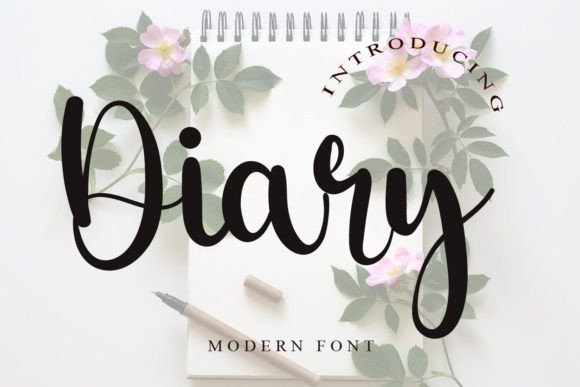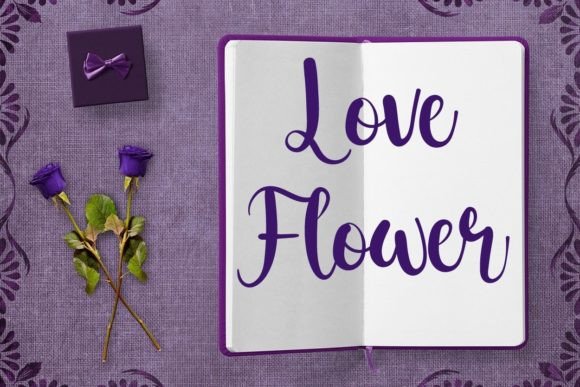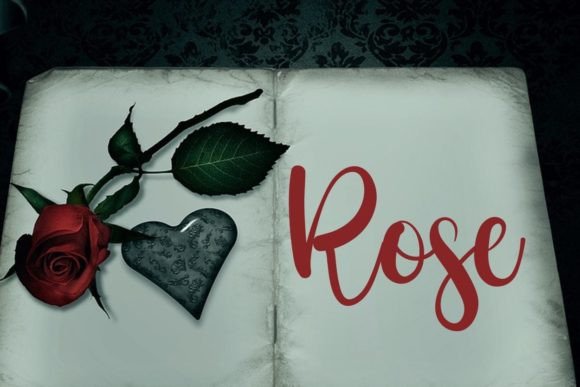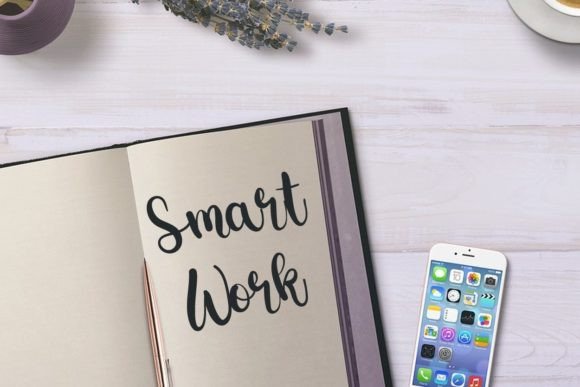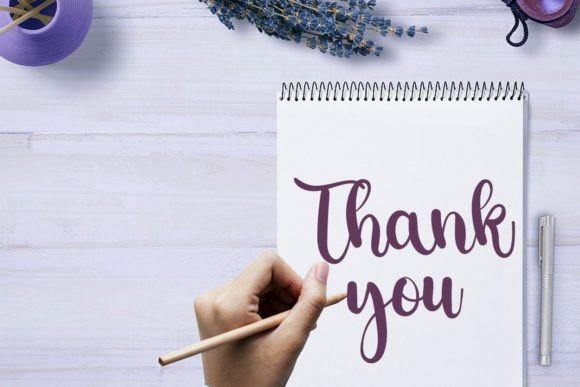
Diary Font
About Diary Font
“Diary” is a fresh and beautiful font designed to cater to various design purposes, making it a versatile tool for a range of creative projects. Whether you’re working on YouTube banners, cover logo mockups, wedding invitations, ID cards, flyers, or crafts, this font brings a sense of freshness and uniqueness to your designs.
The simplicity and uniqueness of “Diary” make it an excellent choice for a wide range of design applications. Its clean lines and distinctive characters contribute to a modern and contemporary aesthetic, ensuring that your designs stand out with clarity and style.
For YouTube banners, “Diary” adds a touch of freshness to your visual content. The font’s modern look enhances the overall appeal of your banners, making them visually striking and inviting to your audience.
In logo mockups and branding materials, “Diary” contributes to a clean and sophisticated presentation. The font’s simplicity allows your logo designs to take center stage, while its fresh and beautiful characteristics enhance the overall visual appeal.
Wedding invitations gain an elegant and modern touch with the use of “Diary.” The font’s simplicity ensures readability, while its fresh design adds a contemporary and stylish element to your invitation designs, making them suitable for a variety of wedding themes.
For ID cards and crafting projects, “Diary” offers a balance between professionalism and aesthetics. Its clean and unique appearance makes text easily legible, contributing to the overall clarity of your designs.
Ultimately, “Diary” is more than just a font; it’s a design companion that contributes to the progress and development of your business by providing a modern, clean, and unique visual identity. Its versatility makes it suitable for a variety of design contexts, ensuring that your projects reflect a sense of contemporary style and creativity.